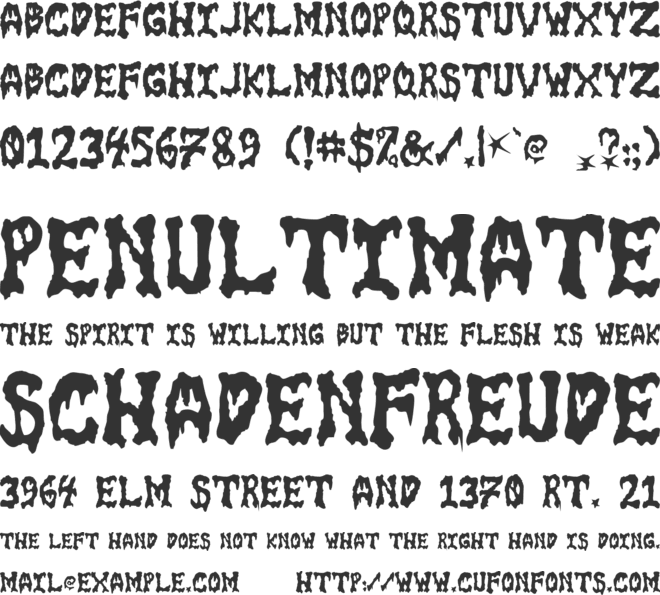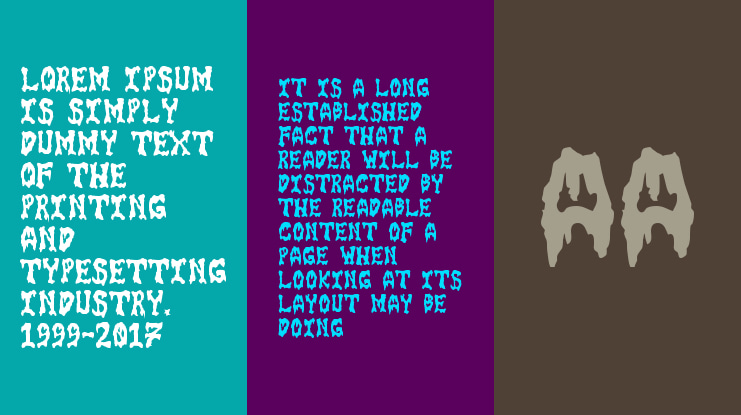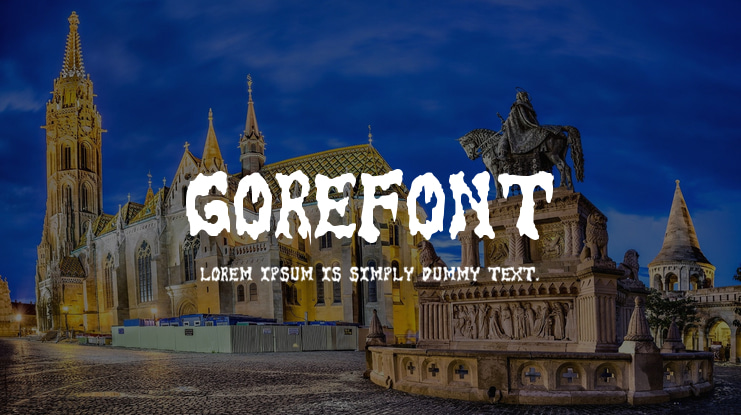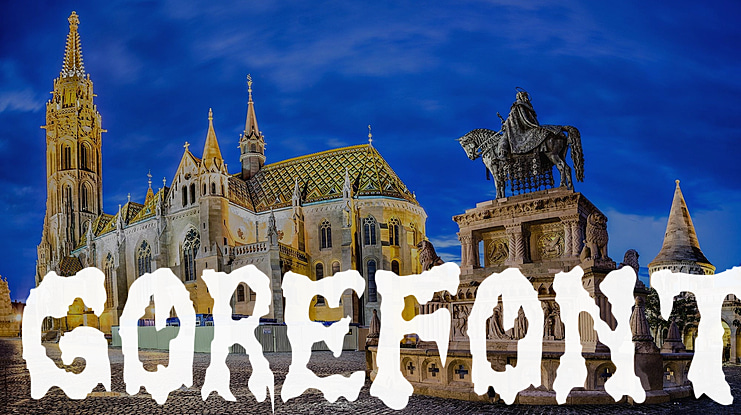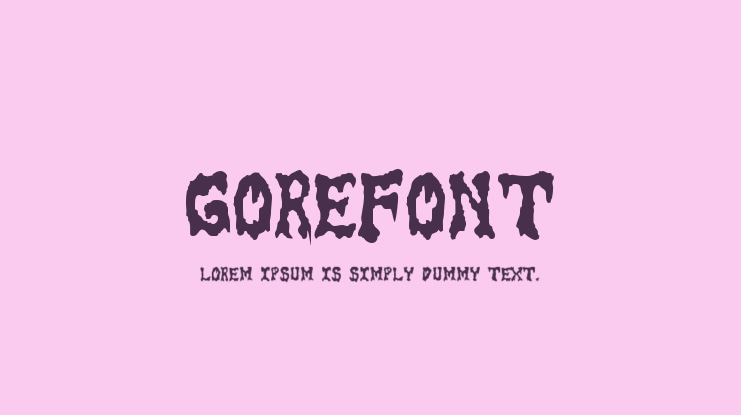
GoreFont Font
GOREFONT-II is the update to my first attempt at the creation of the font, GOREFONT-1. The Kerning was completely redone, so that the letters are not spaced strangely, the letters are for the most part all the same length (give or take a little due to drippity stuff) and the space was fixed. As for the font itself, it's a really thick drippy font, though not really gory.